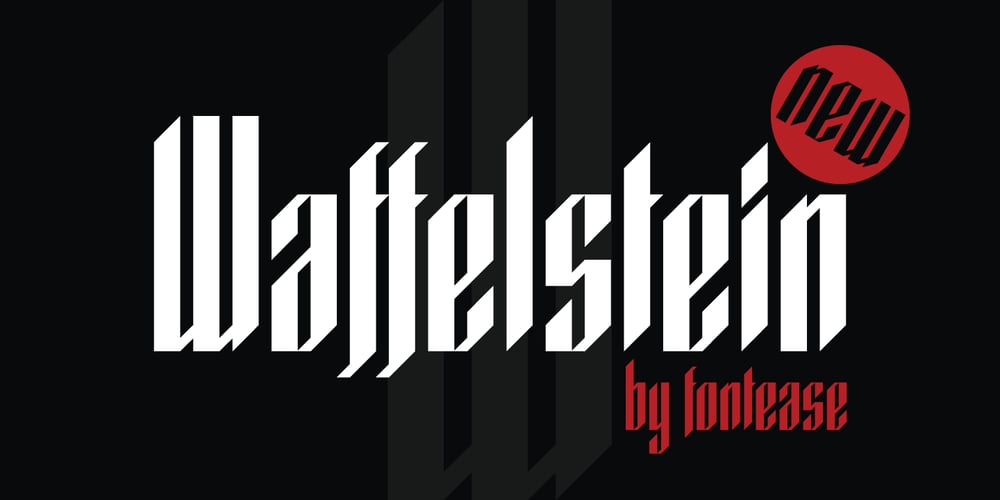
Waffelstein
Waffelstein font
Waffelstein Font Family was designed by Kolyu Kolev and published by Fontease. Waffelstein contains 3 styles and family package options. Waffelstein is a modern geometric typeface inspired by the passion for eating waffles, the old fraktur fonts, some heavy rock bands, some PC games and the graphical perspective in general.Although it is somewhat decorative by nature, Waffelstein includes extended Latin language support, but also Cyrillic and Greek.Designed with OpenType features like glyph alternates and ligatures, Waffelstein is perfectly suited for graphic design and any display use.It could easily work for army, bands, breweries, cinema, gamers, metalheads, militaries, movies, posters, pubs, quotes, t-shirts, zeppelins and many more.